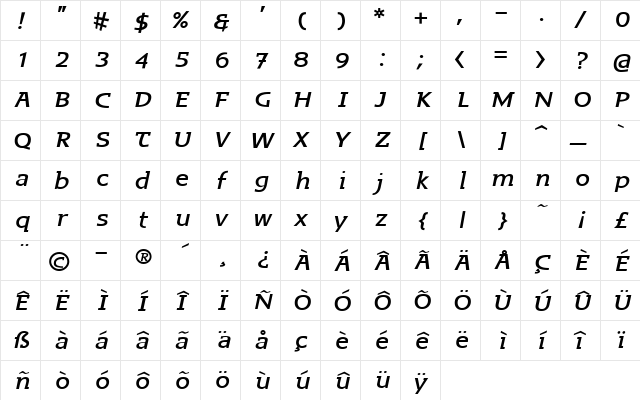
Browser Bold
Bold · \\ Peter Fraterdeus -  ·
Design Context for Browser Typeface
Browser takes a measured approach to typography — its balanced proportions and neutral character make it a reliable workhorse for both digital and print work. Its bold stroke weight gives it real presence on the page.